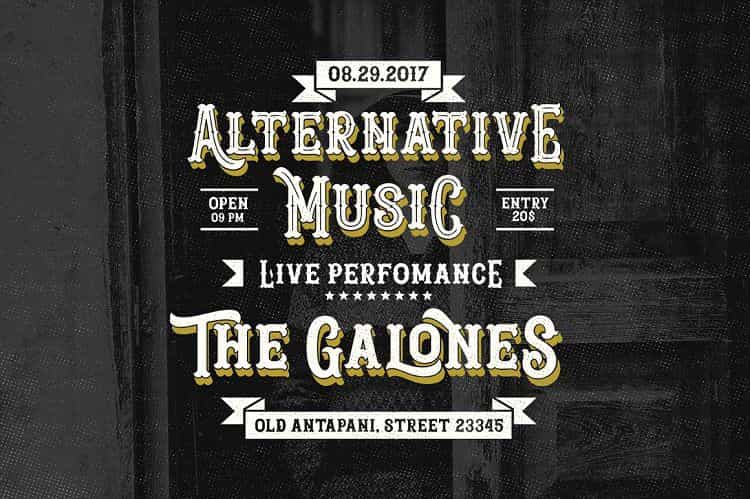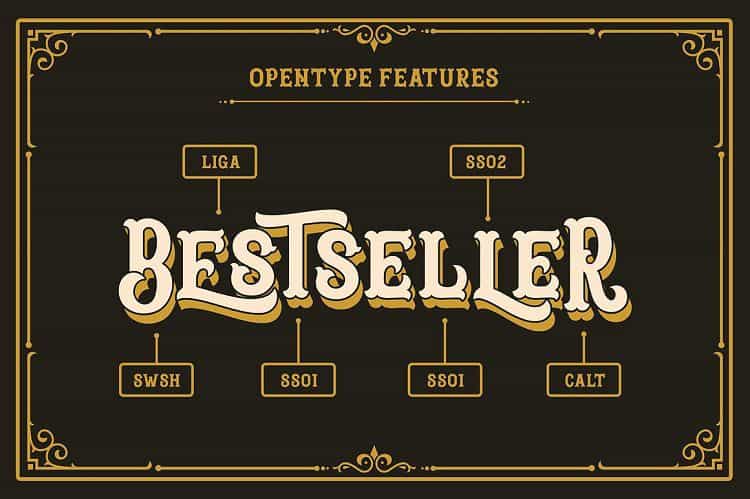
Discover Blastrick Vintage Font, part of the Blackletter Display Retro Gothic collection—a versatile and unique font perfect for adding a personal touch to your projects. Download it for free and enjoy crafting designs with style, from invitations to social media posts. This font is available exclusively for personal use, giving you the freedom to create without limits. Unlock your creativity with Blastrick Vintage Font today!
Introducing Blastrick! It is created by Graptail, this font is a premium one and it sells on creativemarket but today it can be downloaded for free. Blastrick is a classical type system with layers that can be combined in numerous ways to create different designs by using various fonts and colors. Get the 3D impression by either adding the shadow font or just using the capital letters of regular and bold cut for a sharp artwork.